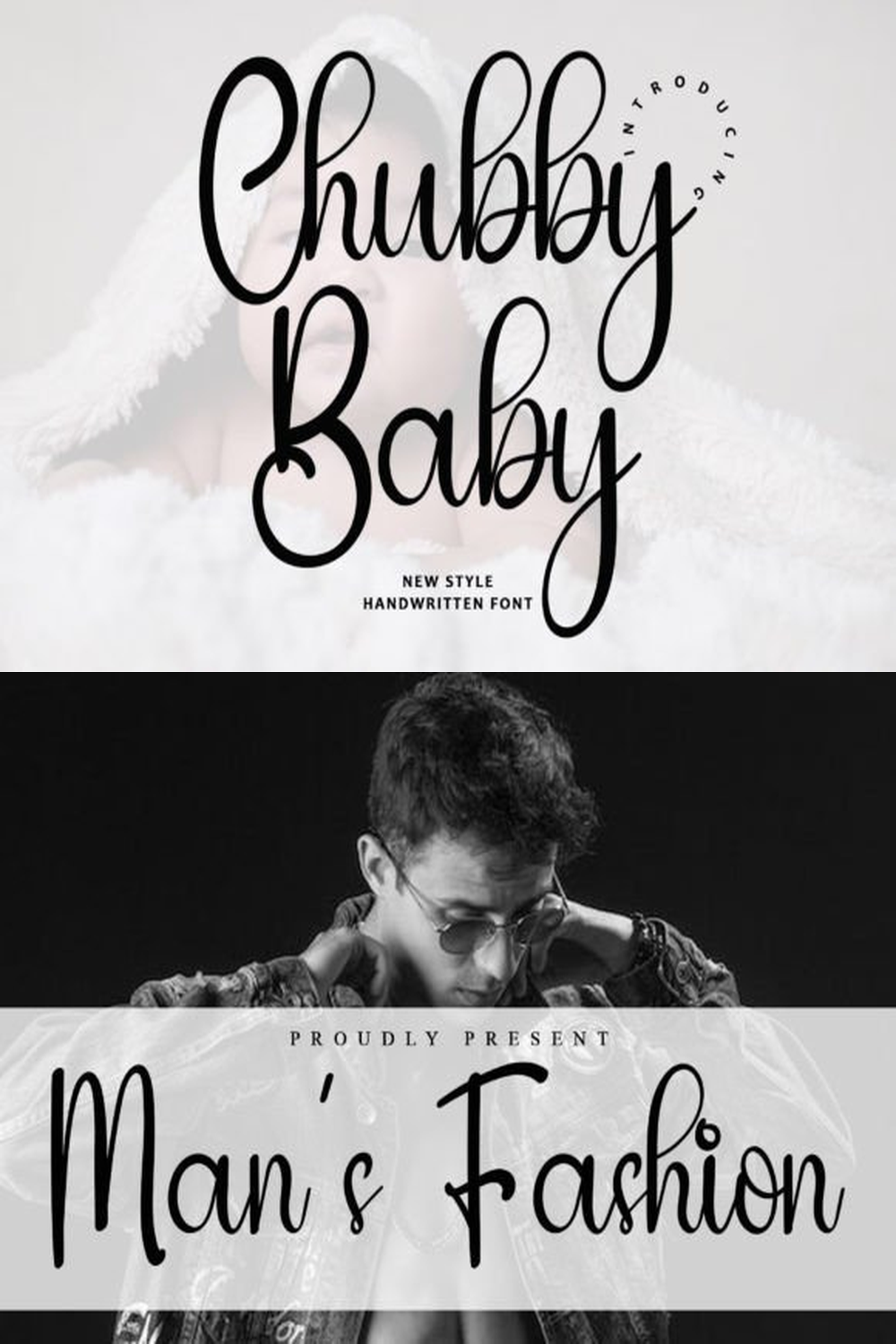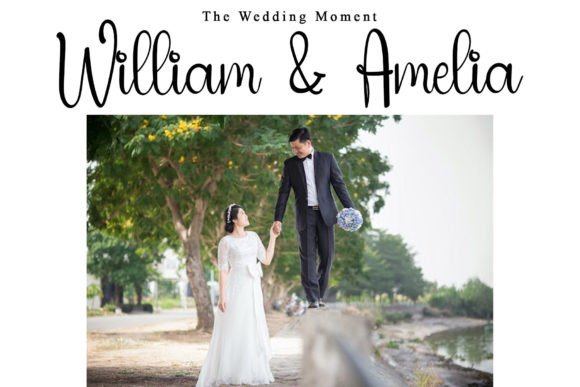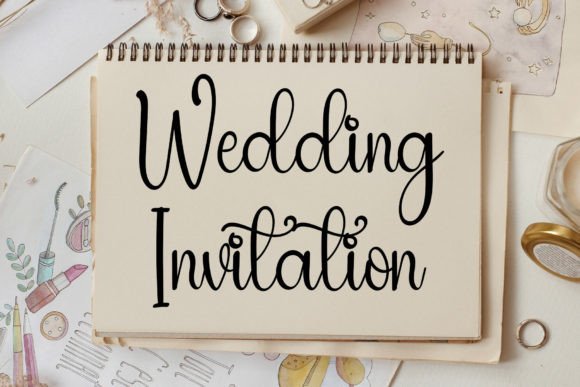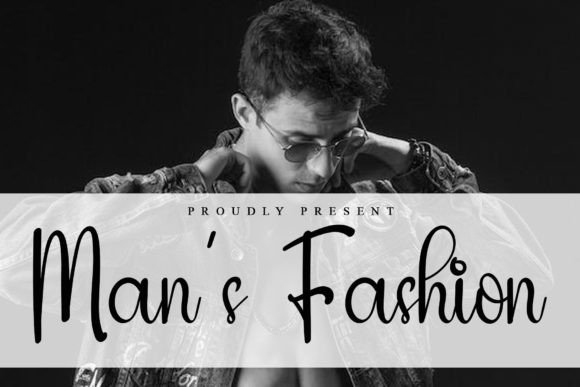
Chubby Baby Font
About the Chubby Baby Font
Welcome to the world of Chubby Baby Font, a typeface that will inspire your next great project. Chubby Baby is a magical script font carefully created with a touch of elegance. Whether you’re looking for fonts for Instagram or calligraphy scripts for DIY projects, this font will turn any creative idea into a true piece of art!
Chubby Baby Font Usage Examples